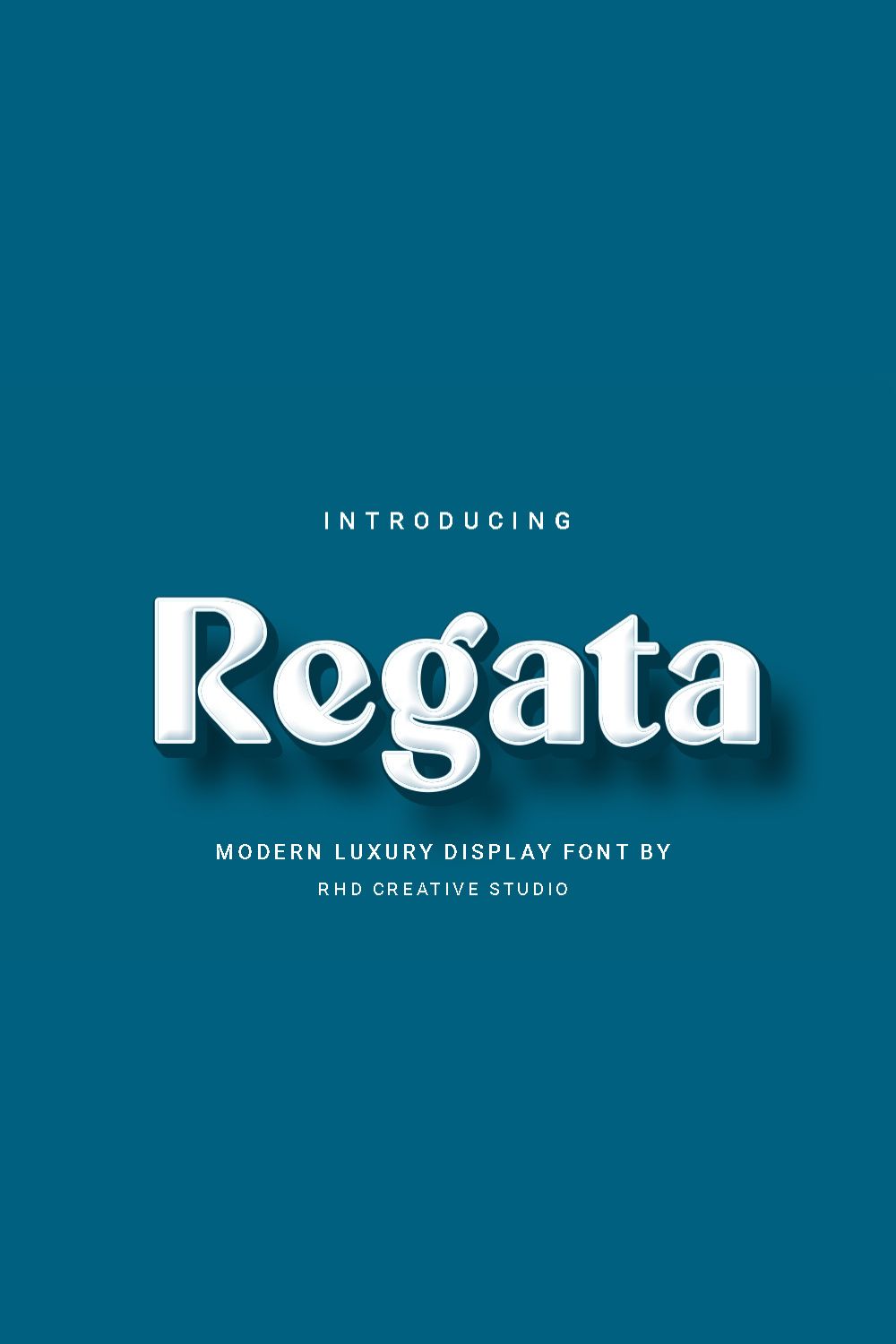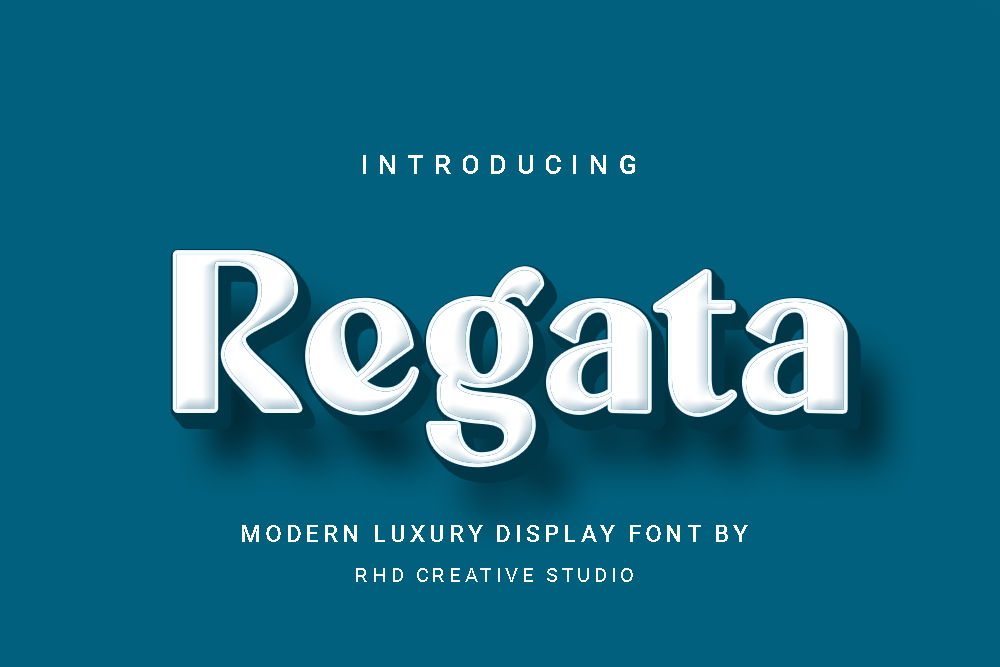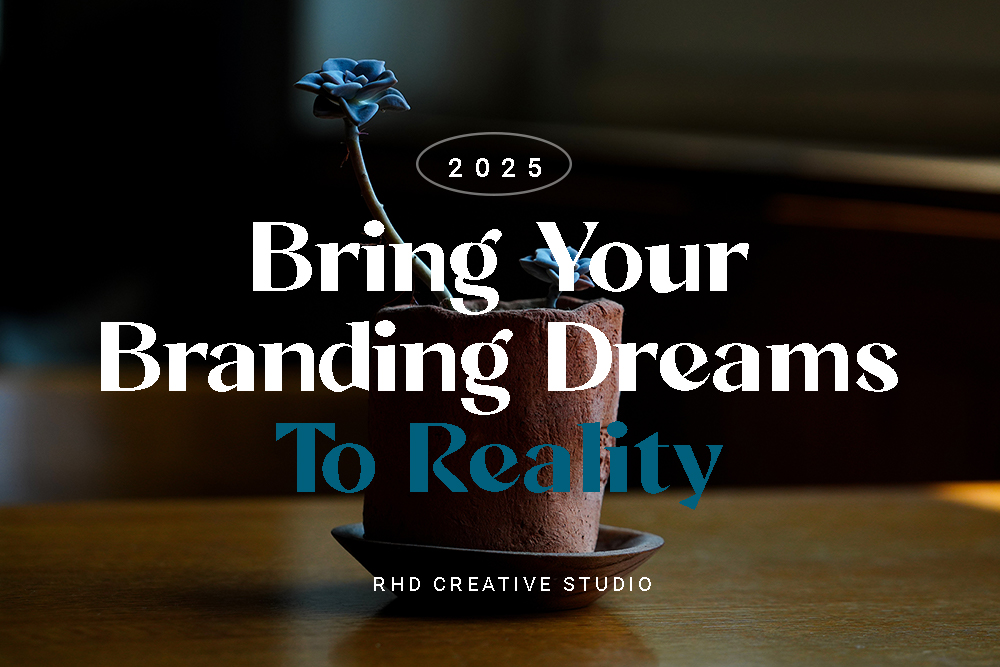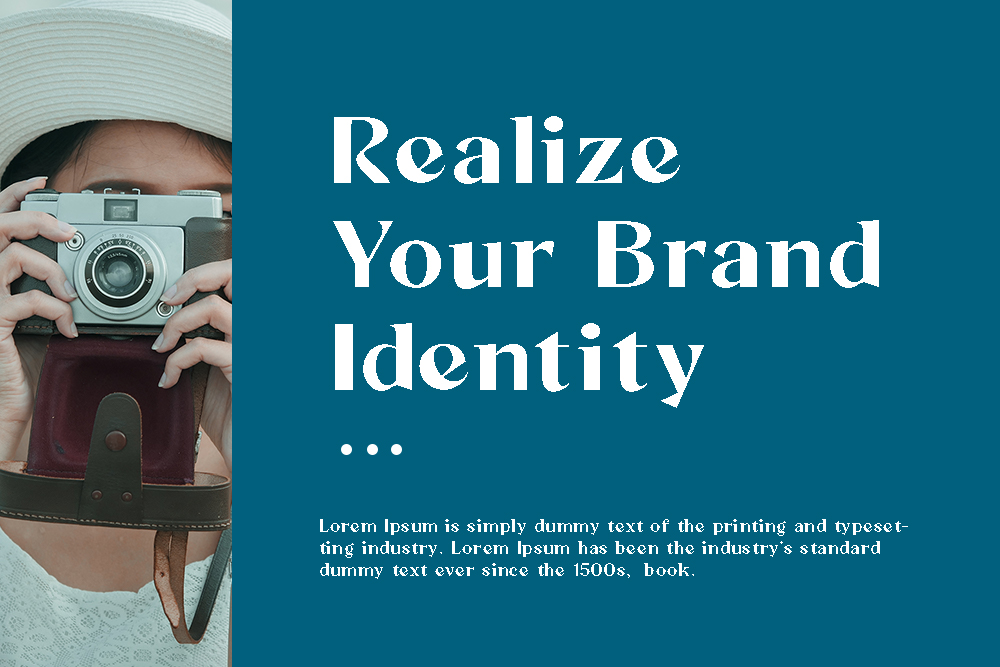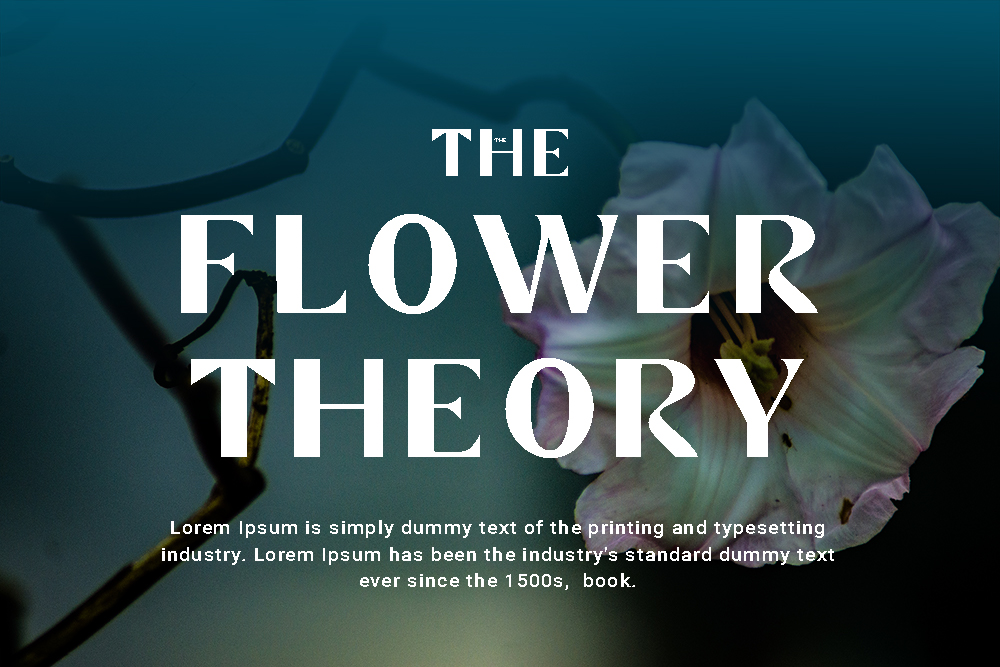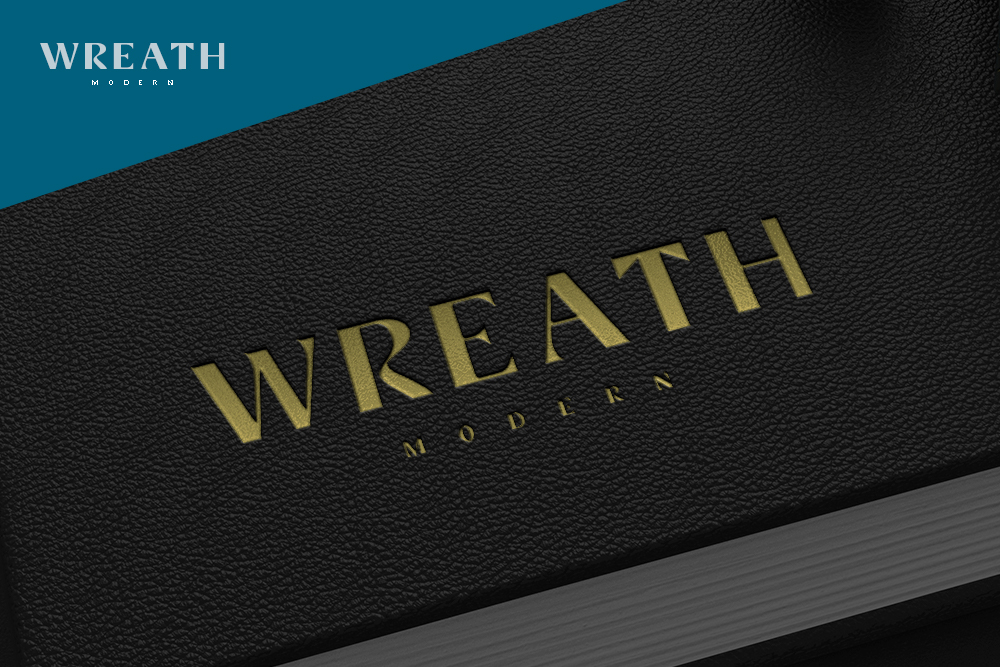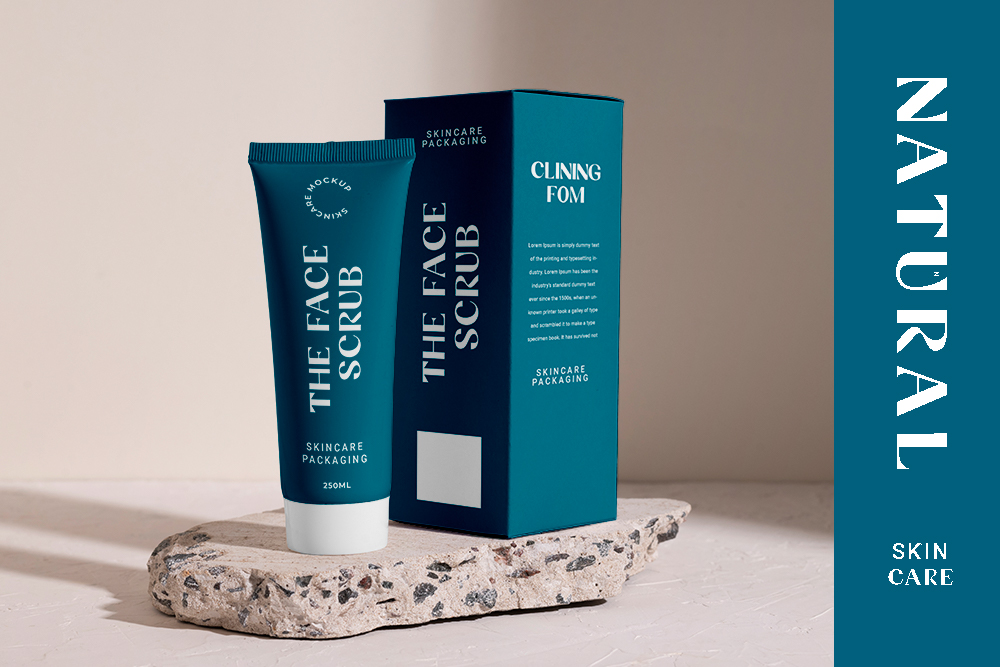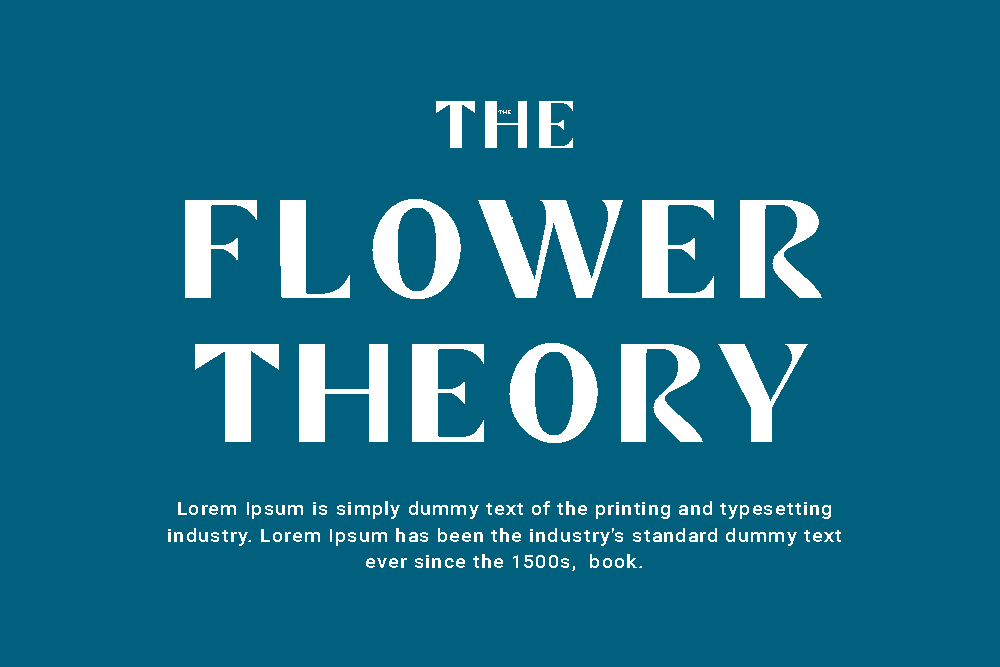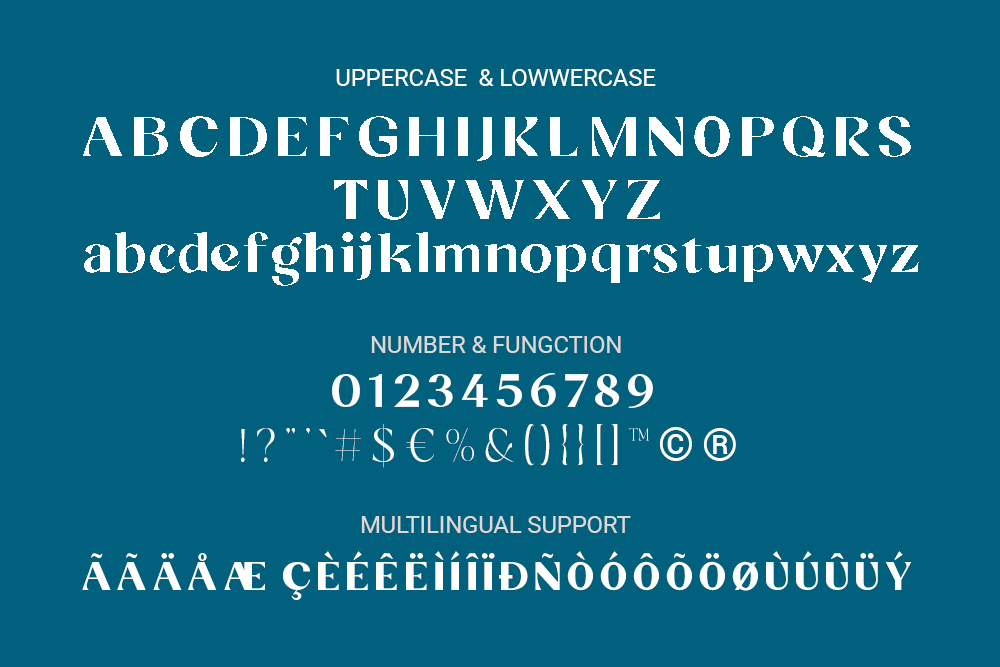
Hello everyone, I would like to introduce Regata Modern Luxury Display Font.
Regata Modern Luxury Display Font with Handmade character. Regata Modern Luxury Display Font, Modern font to make your design project stand out! Regata is a perfectly choice for any creative endeavor, creating, modern, chic, lifestyle design such as logotype, title, cover, branding, invitations, wedding designs, display and magazine, social media posts, advertisements, printed quotes, product packaging, corporate brand, product designs, labels, photography, watermarks, special events and any other project with modern touch.
FEATURES
– Uppercase and Lowercase letters
– Numbering and Punctuations
– Multilingual Support